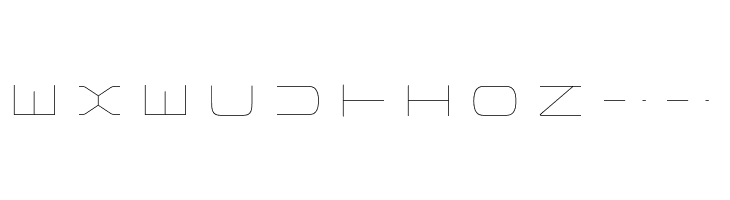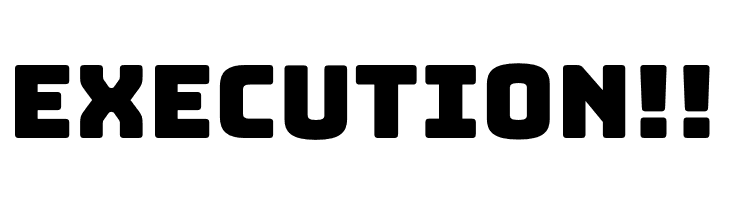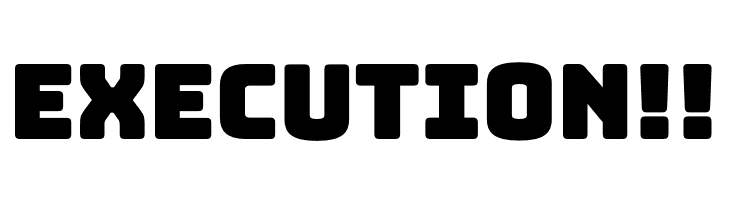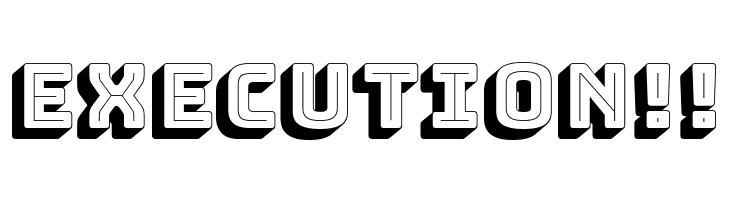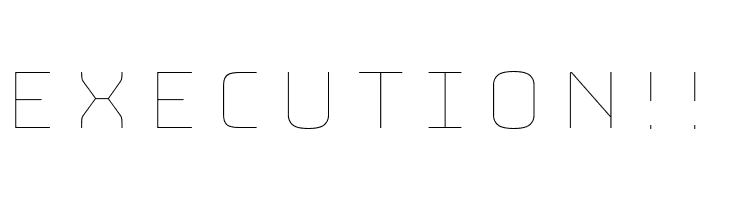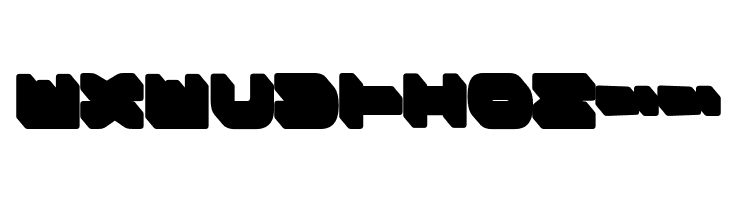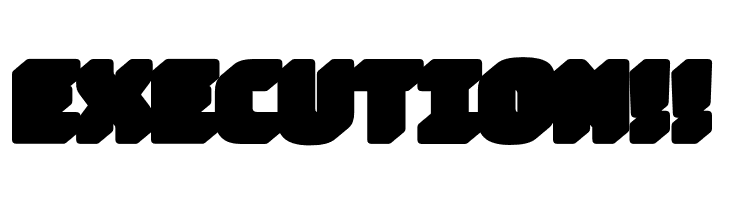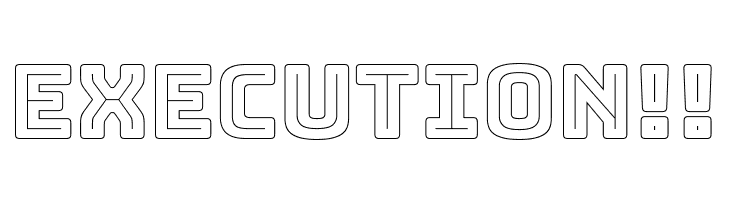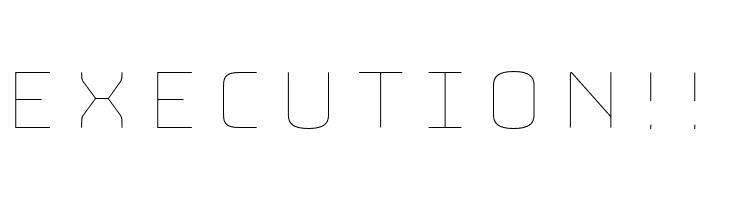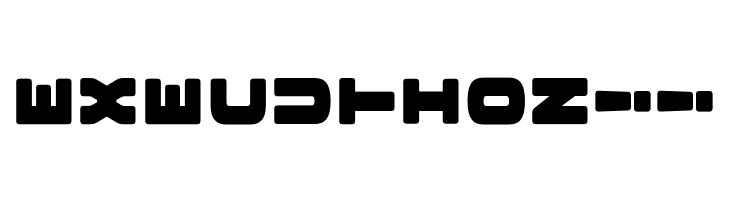
• Bungee
A bold, playful font with thick, rounded letterforms and strong geometric shapes.
• Bungee Color Regular
A bold, playful font with thick, rounded characters ideal for eye-catching displays.
• Bungee Hairline
A geometric, minimalist font with thin, hairline strokes and a modern aesthetic.
• Bungee Inline
A bold, inline font with a geometric and decorative style.
• Bungee Layers Inline Regular
A bold, 3D font with a shadow effect and modern aesthetic.